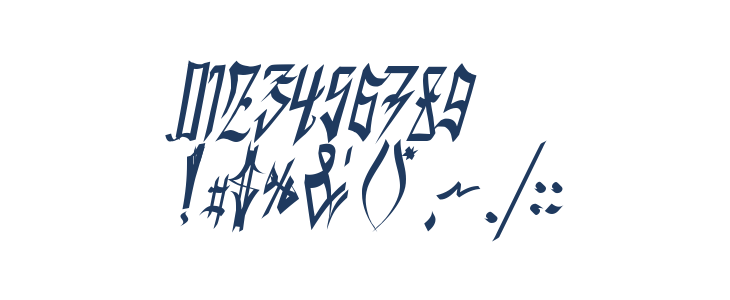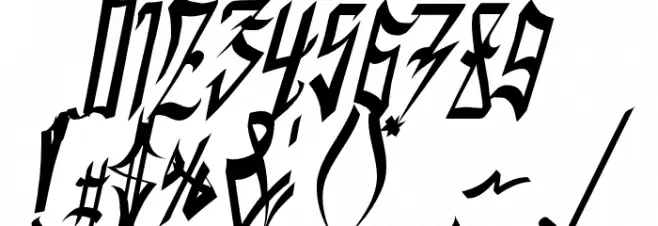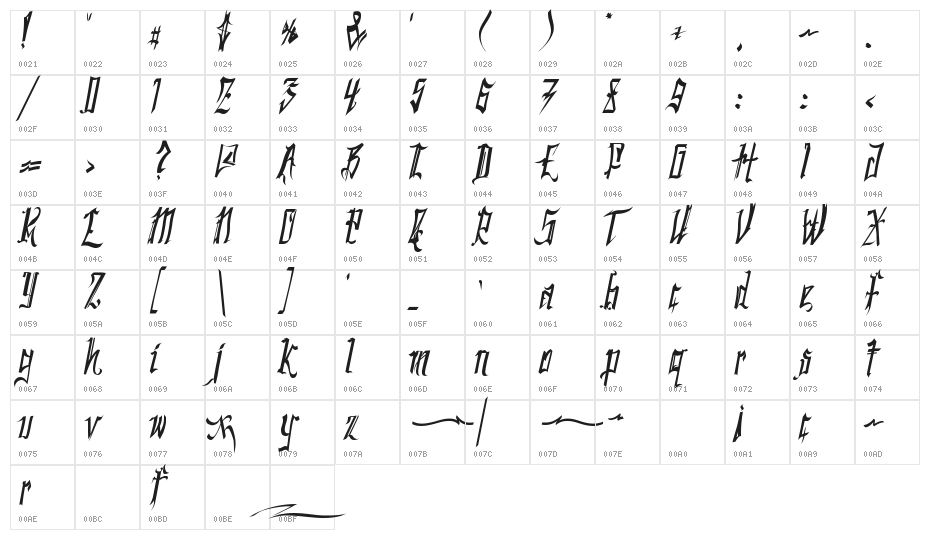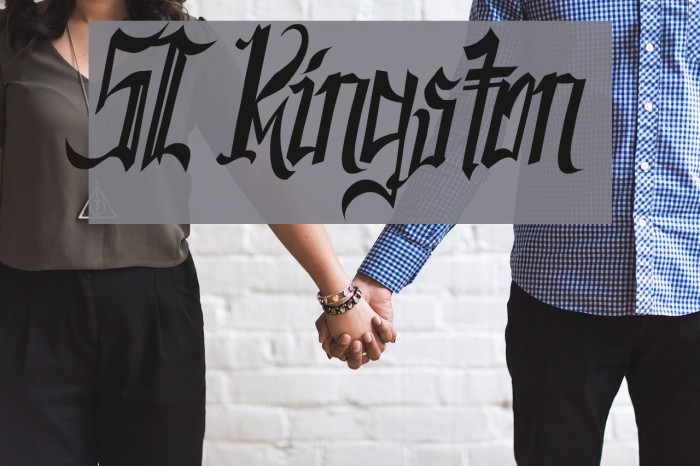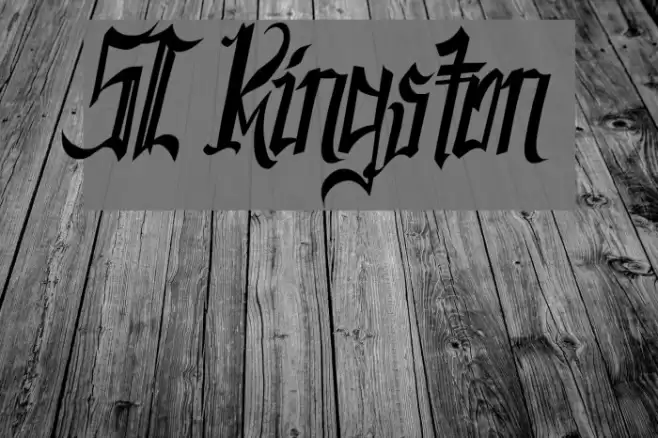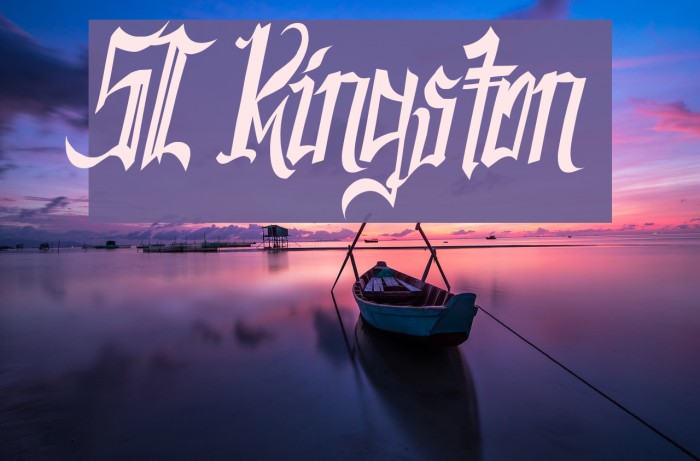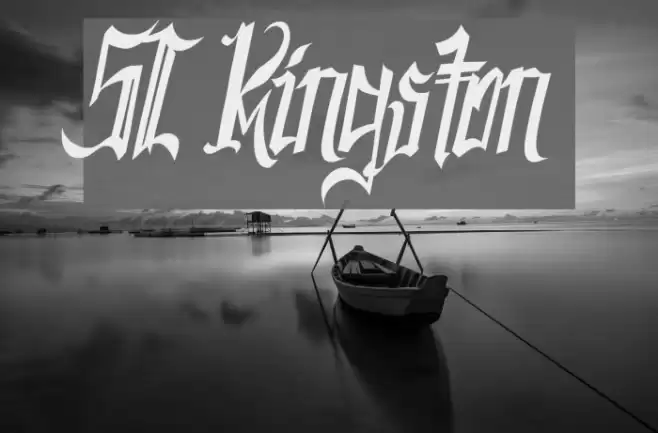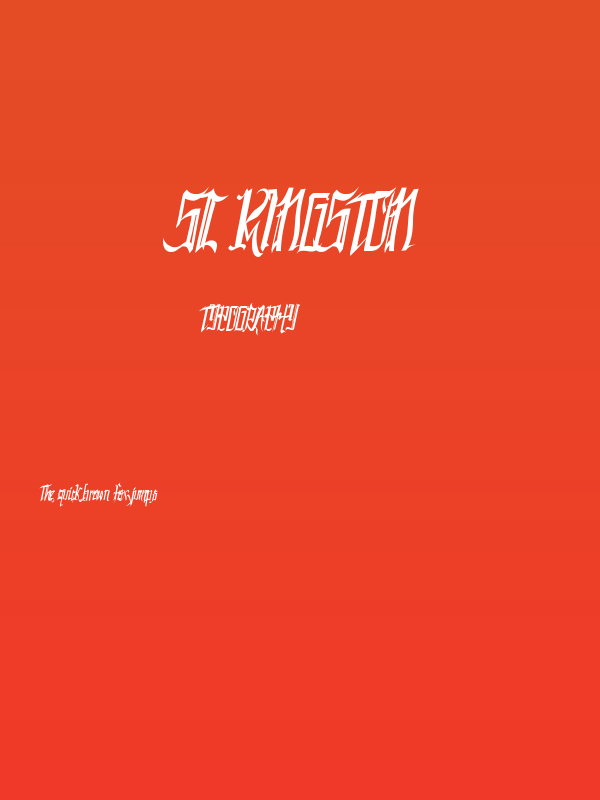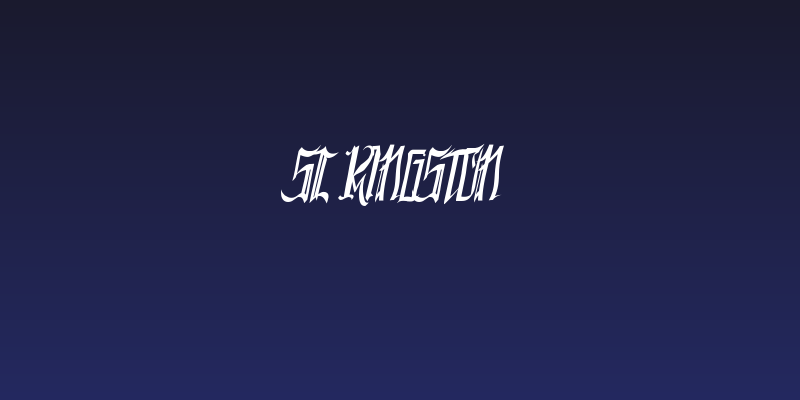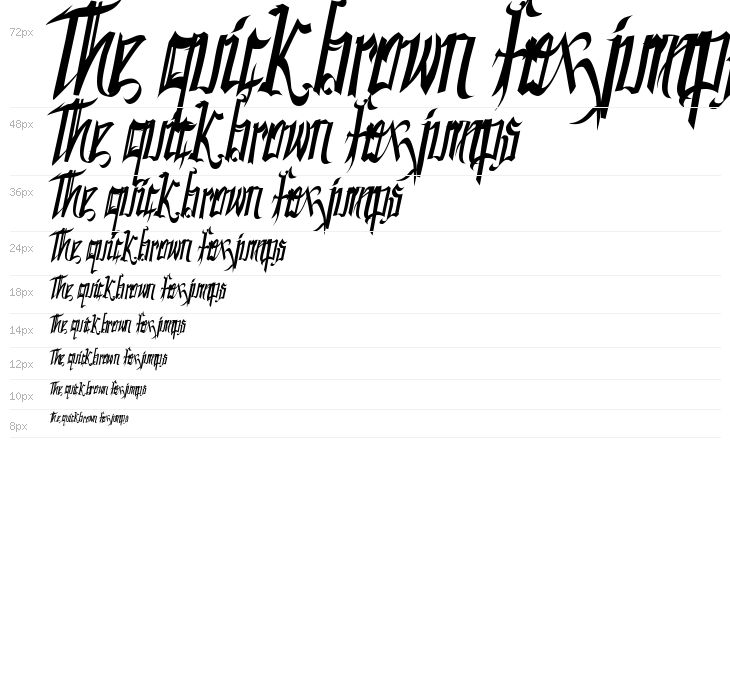
SC Kingston Font
SC Kingston Description
This font exhibits a bold and dramatic style, characterized by its sharp, angular lines and intricate details. The uppercase and lowercase letters are designed with a high level of artistry, featuring elongated strokes and decorative flourishes that give it a distinct, gothic appearance. The numbers and special characters maintain this elaborate style, ensuring a cohesive look across all glyphs. The font's unique aesthetic is reminiscent of traditional calligraphy, yet it incorporates modern elements that make it stand out. Its high contrast in stroke thickness adds to its striking visual impact, making it suitable for projects that require a strong, eye-catching typeface.